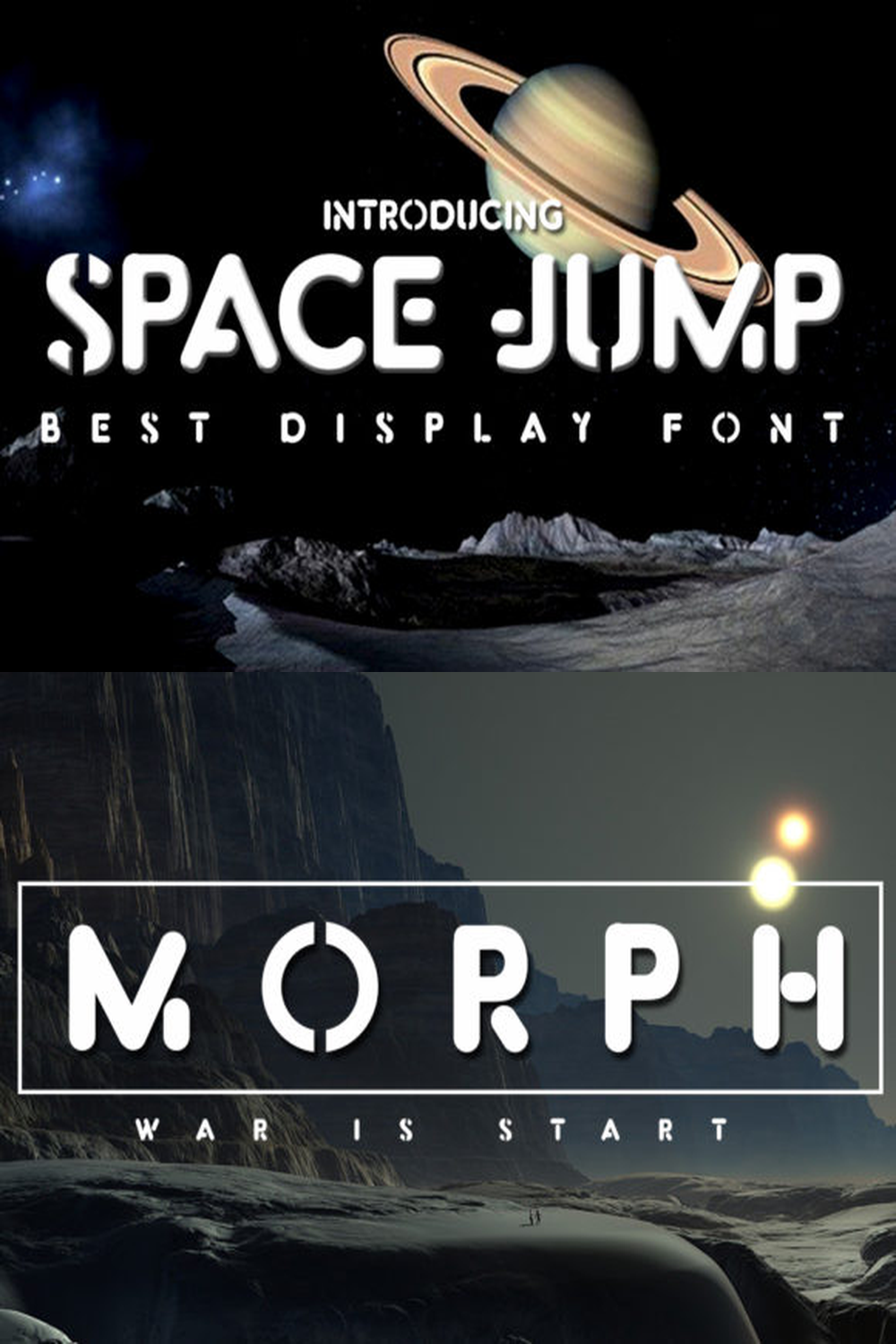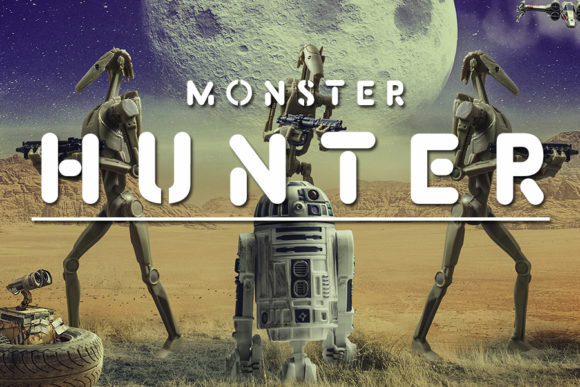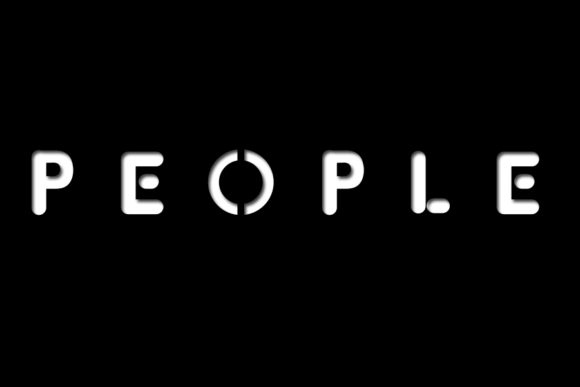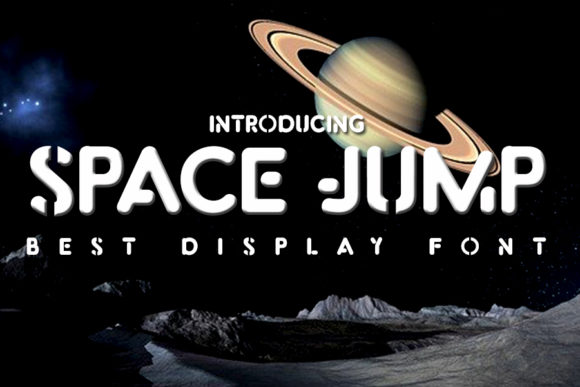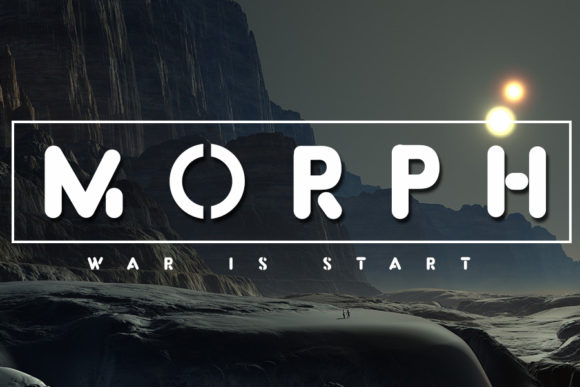
Space Jump Font: A Bold Display Font for Futuristic Logo Design
About the Space Jump Font
Explore the possibilities with Space Jump Font, a font that offers both beauty and functionality. Space Jump is a modern display font with a futuristic feel. Add this display font to each of your creative ideas and notice how it makes them stand out.
Space Jump Font Usage Examples